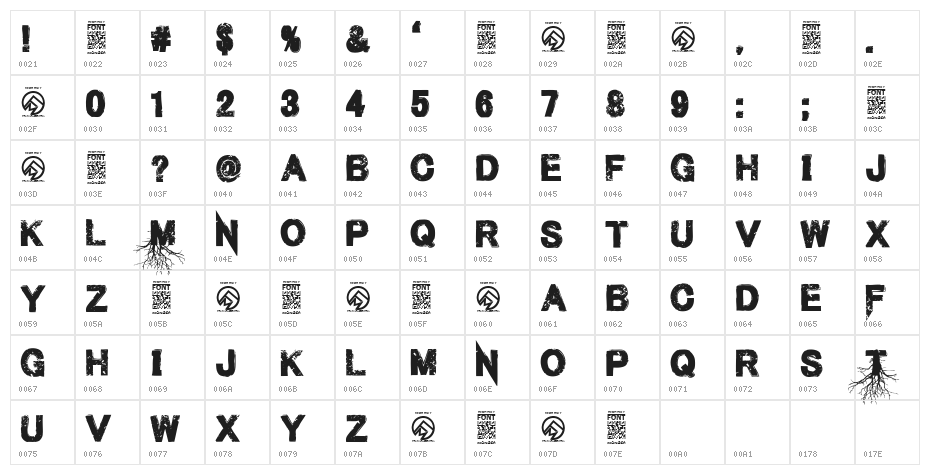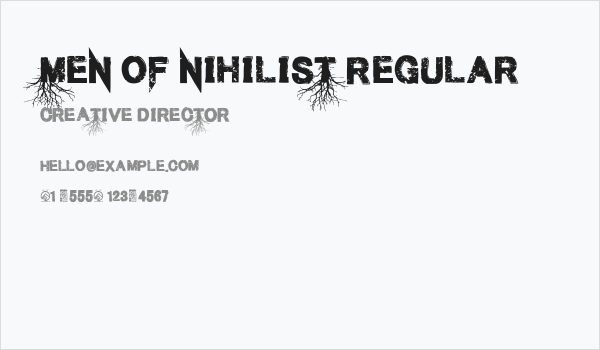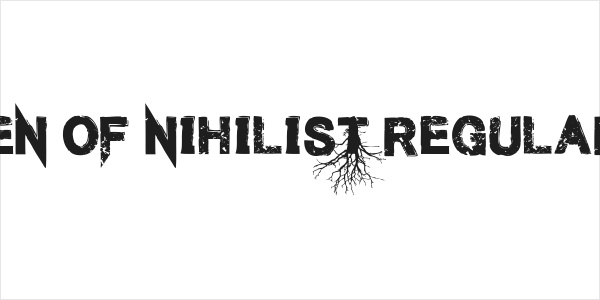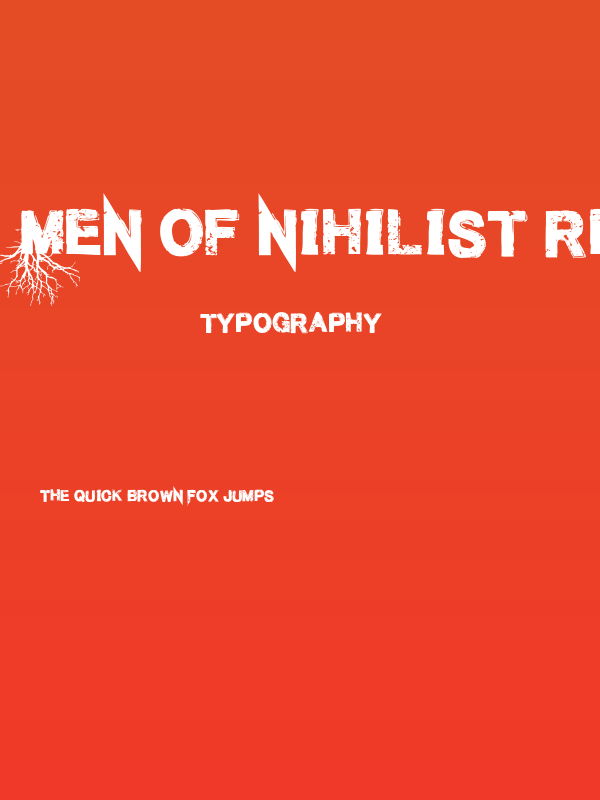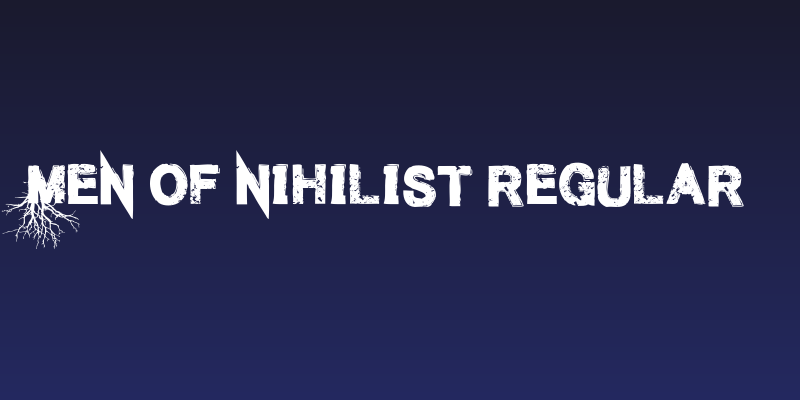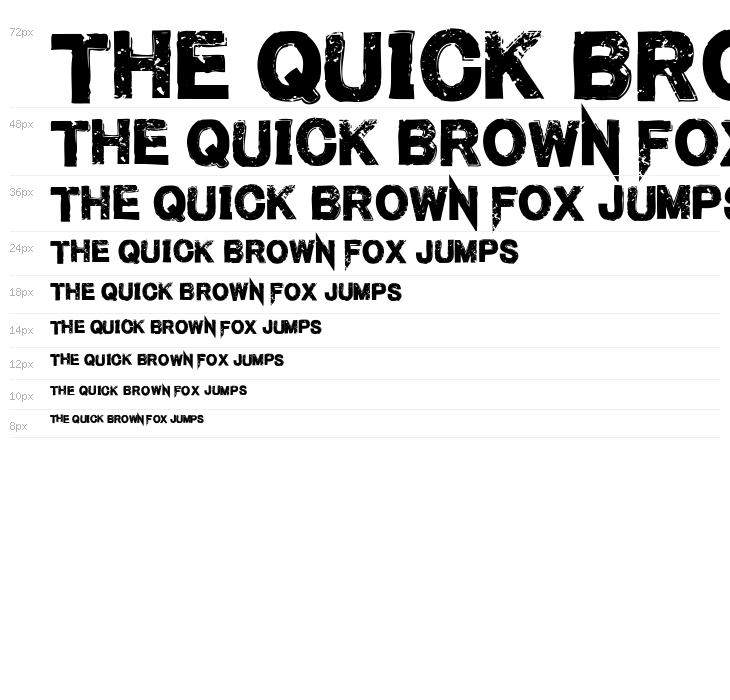
Men of Nihilist Regular Font
Men of Nihilist Regular Description
This font features a bold and distressed style, with each character appearing as if it has been weathered or eroded over time. The letters have a rough, textured appearance, giving them a gritty and raw aesthetic. The uppercase and lowercase letters maintain a consistent style, with unique elements such as cracks and splinters that add to the font's rugged charm. The numbers and special characters follow the same distressed theme, making the font cohesive and visually striking. This design is perfect for projects that require a bold statement or an edgy, rebellious look.
| Proposed Projects | Ideal for album covers, movie posters, event flyers, or any design needing a bold, edgy statement. |